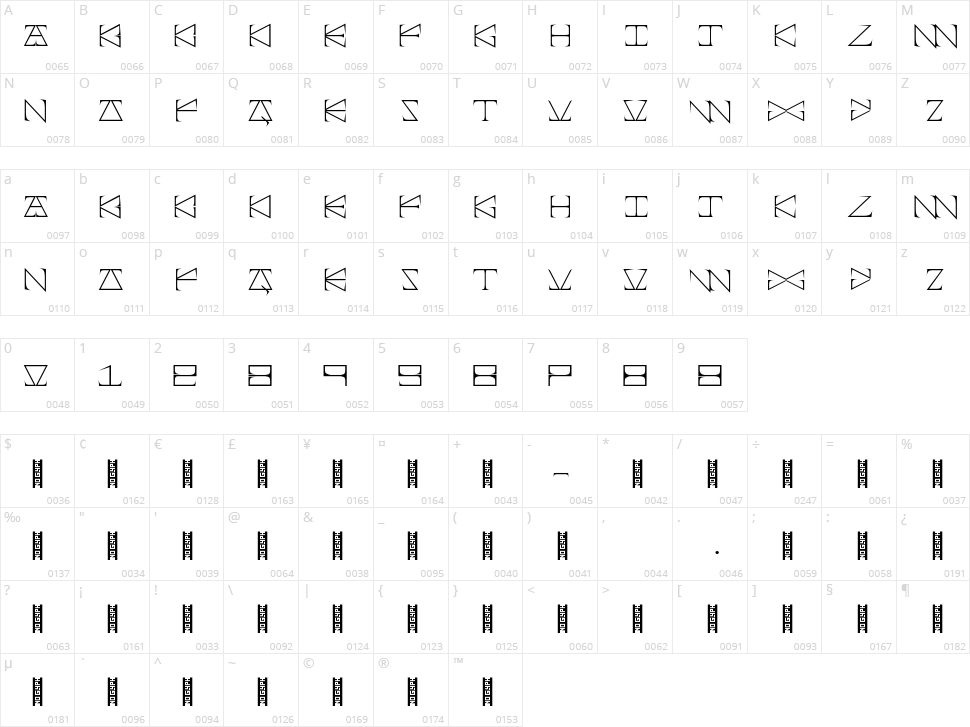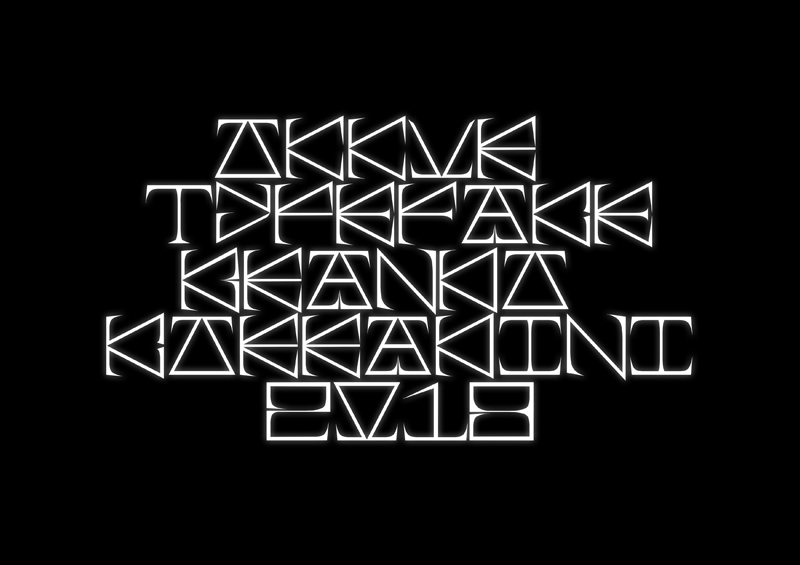
Okkur
Note of the author Okkur typeface is a font designed by Brando Corradini.
modular font, totally in free version.
The name is inspired by the Icelandic characters, in fact okkur means us.